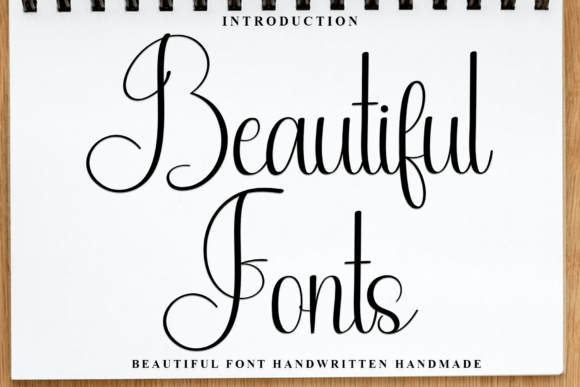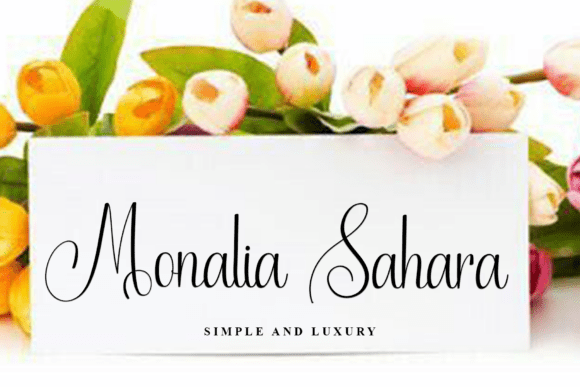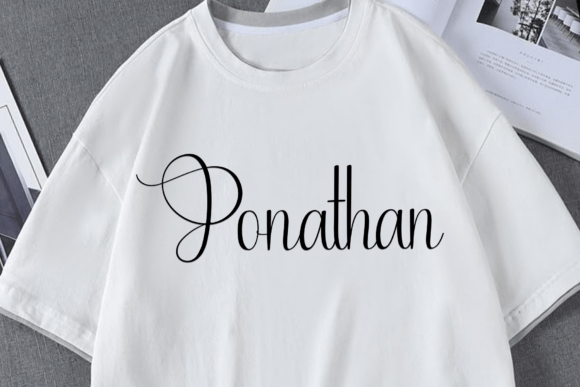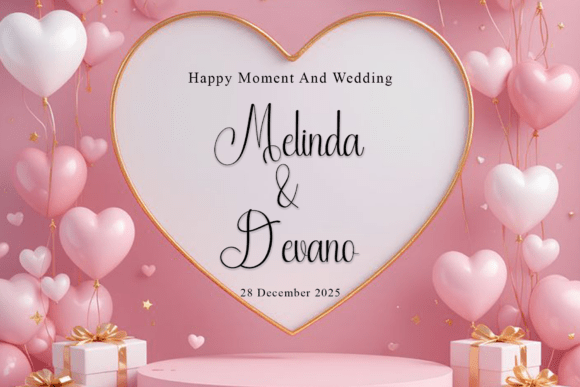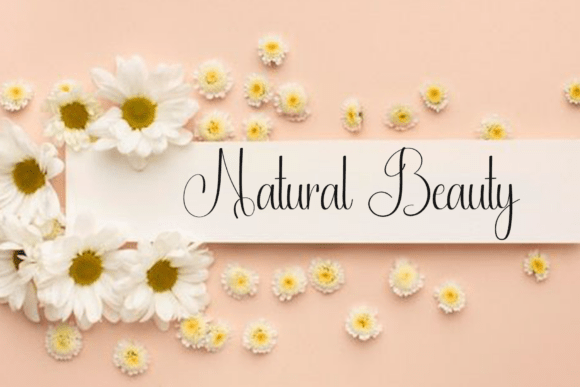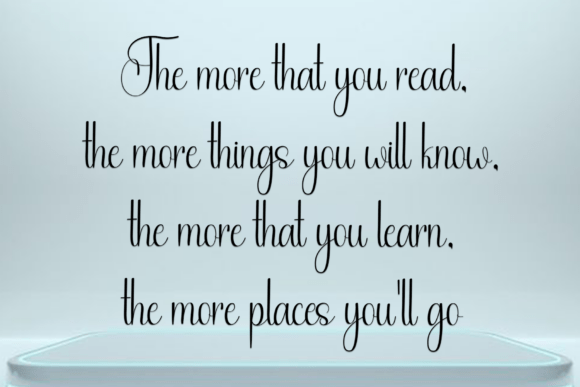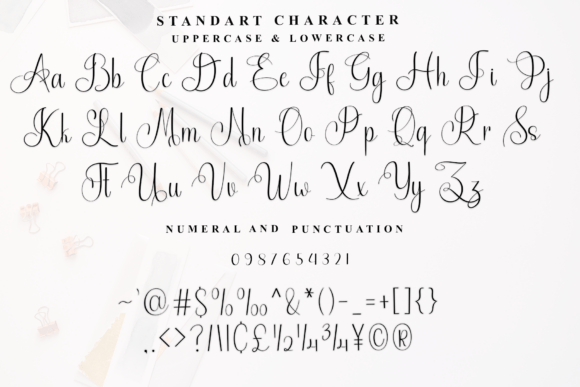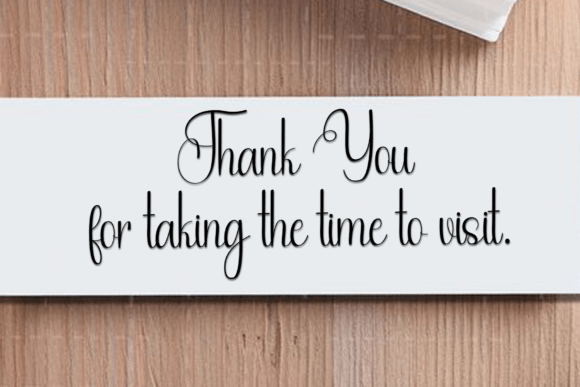
Beautiful Fonts Font
Beautiful Fonts is a delicate and elegant handwritten font. Its distinct and well balanced letters make this font a masterpiece. Fall in love with its incredibly versatile style and use it to create spectacular designs!